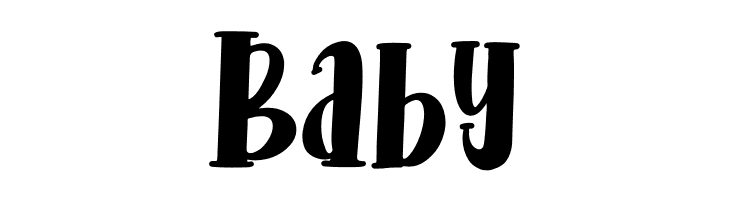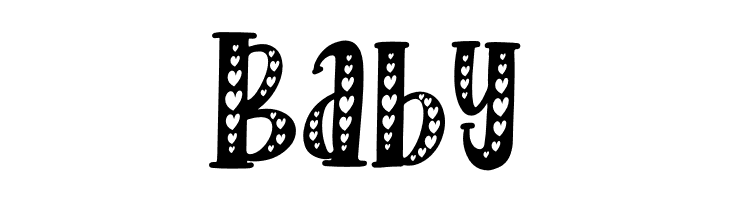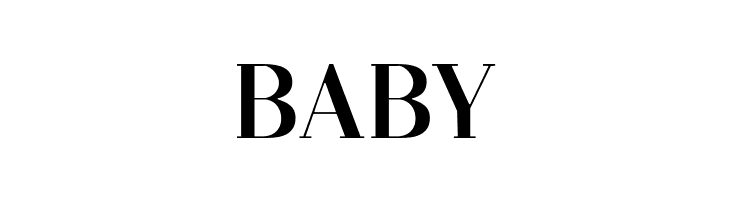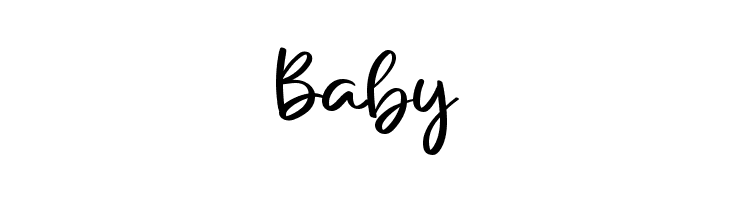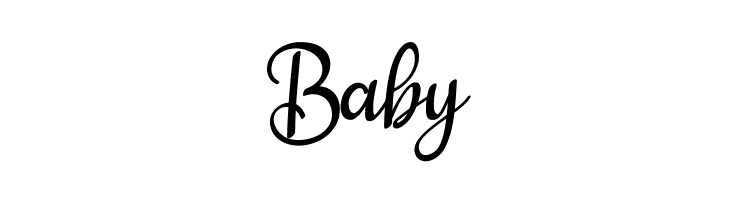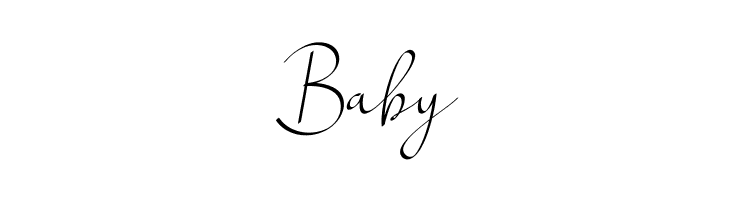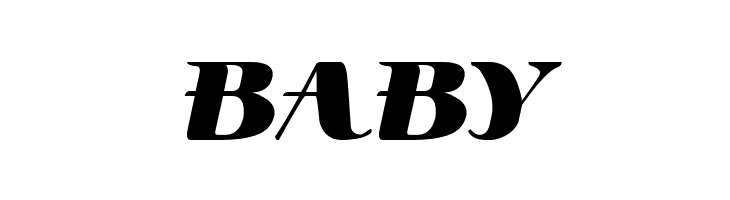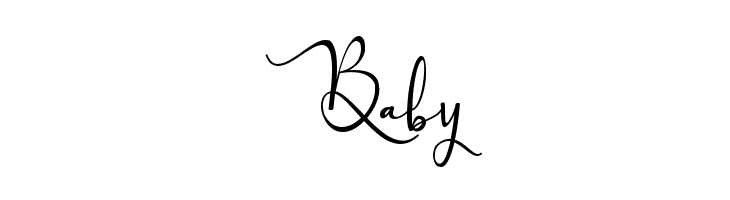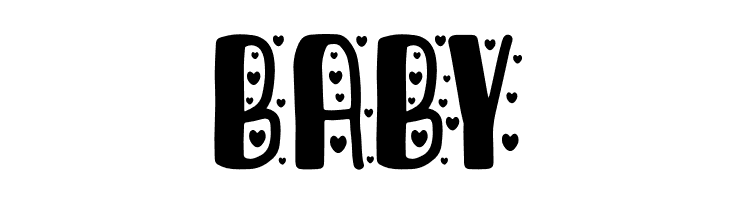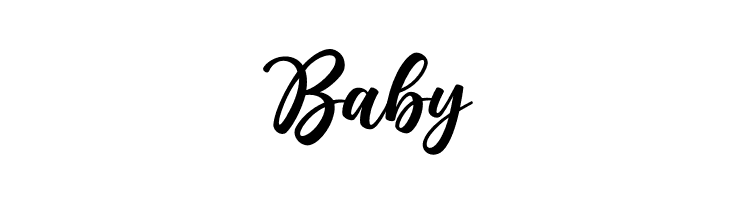
• Love And Faith
A playful, casual handwritten font with smooth curves and a slightly slanted style.
• Love Babe1
A playful and bold font with whimsical curves and dynamic strokes.
• Love Babe2
A decorative font with heart-shaped cutouts, perfect for romantic and playful designs.
• Love Babe3
A playful, bold script font with a hand-drawn, dynamic style.
• Love Babe4
A playful, heart-filled decorative font with bold, rounded letters.
• Love Babe5
A playful, bold, hand-drawn font with dynamic strokes and whimsical flourishes.
• Love Balqist
A cursive, handwritten font with elegant loops and swashes.
• Love Believing
A graceful script font with fluid, connected strokes and elegant curves.
• Love Berry
A playful, handwritten-style font with bold, rounded characters.
• Love Beti
A playful, handwritten font with bold, irregular strokes and whimsical details.
• Love Betteria Sans DEMO Regular
A playful, handwritten font with bold, flowing strokes and a casual aesthetic.
• Love Betteria Script DEMO
An elegant and fluid script font with a handwritten feel.
• Love Cats Italic
A bold, italic font with sweeping curves and a modern calligraphic style.
• LOVE doly
A playful, heart-themed decorative font with bold, whimsical characters.
• LOVE doly